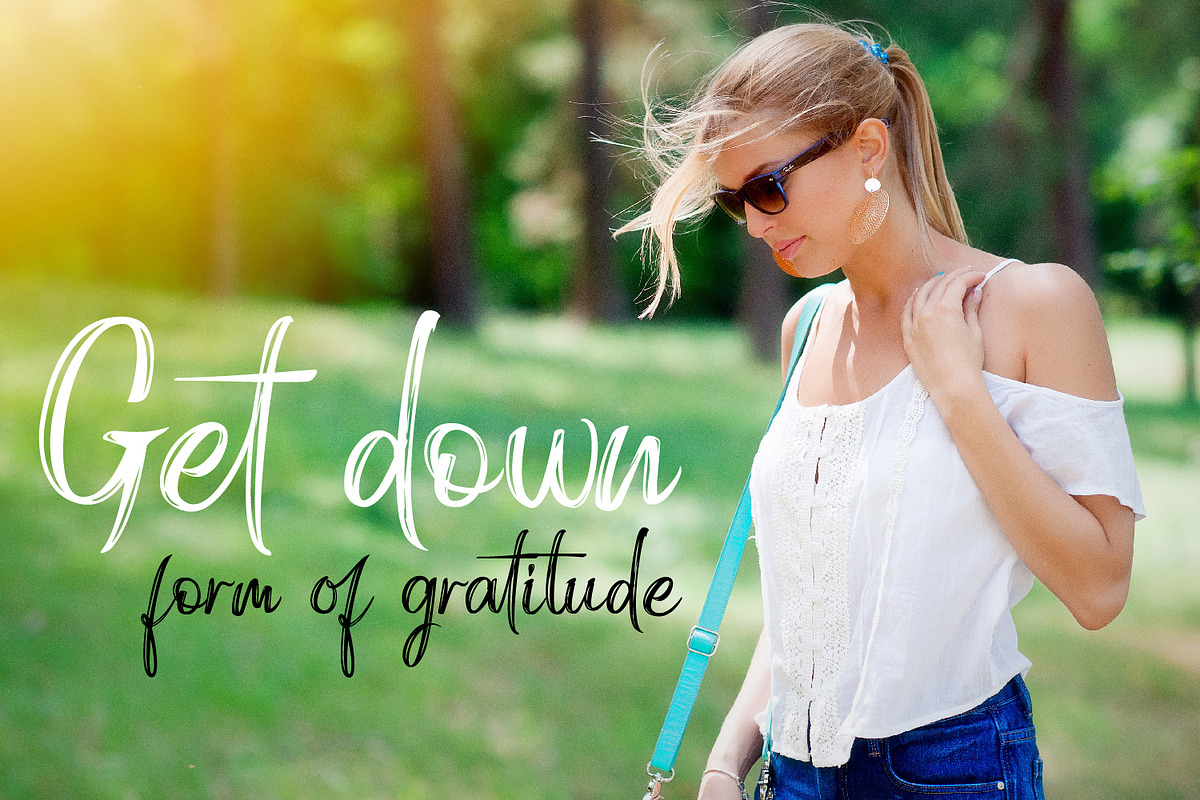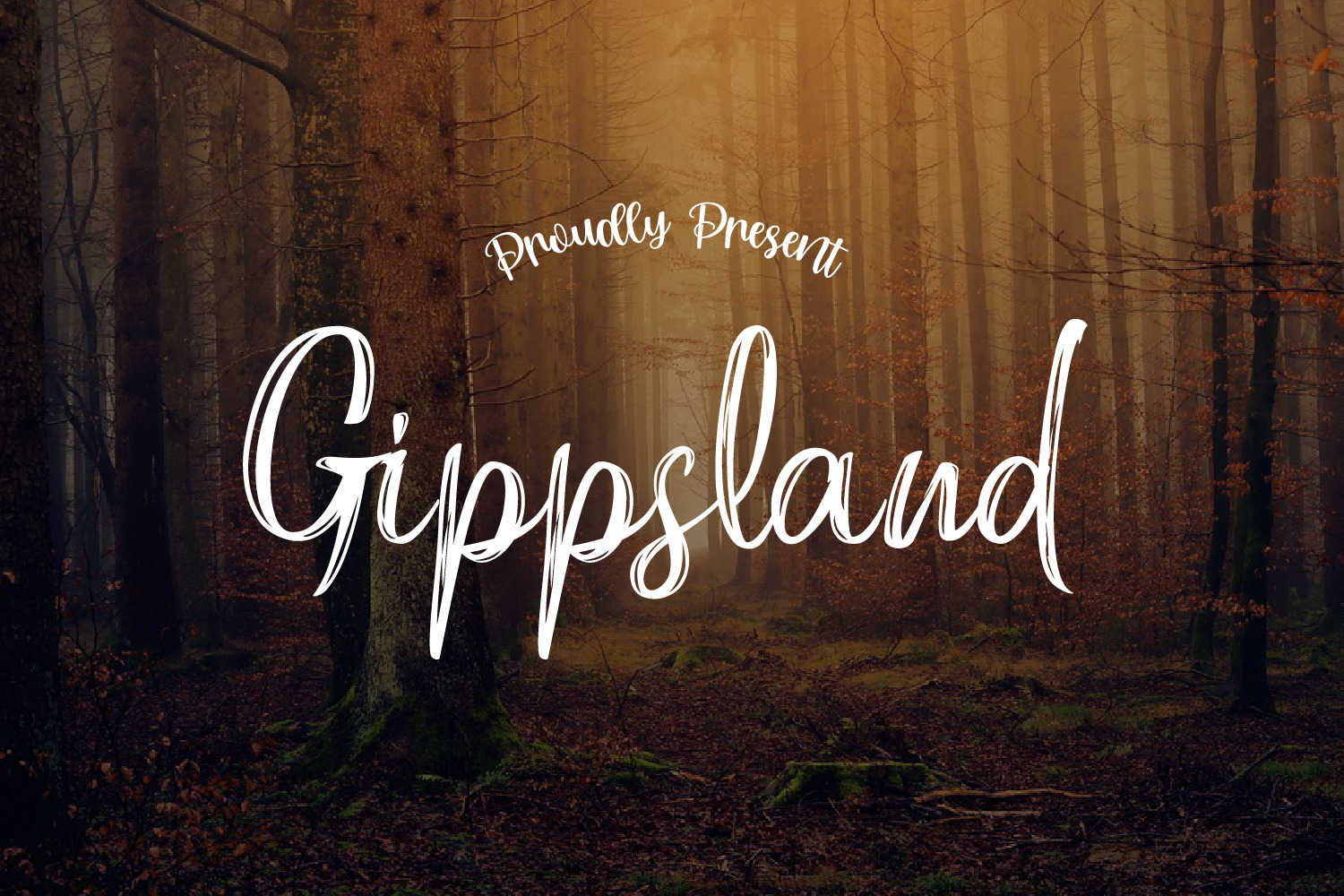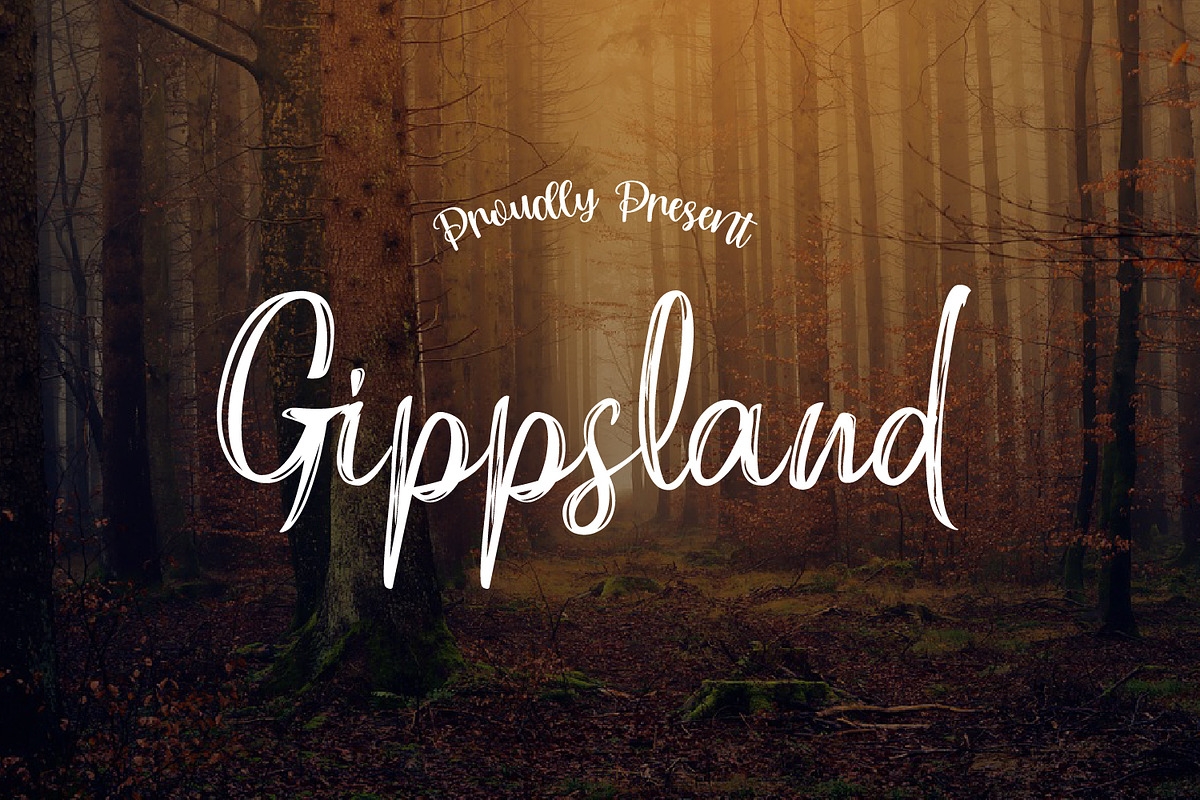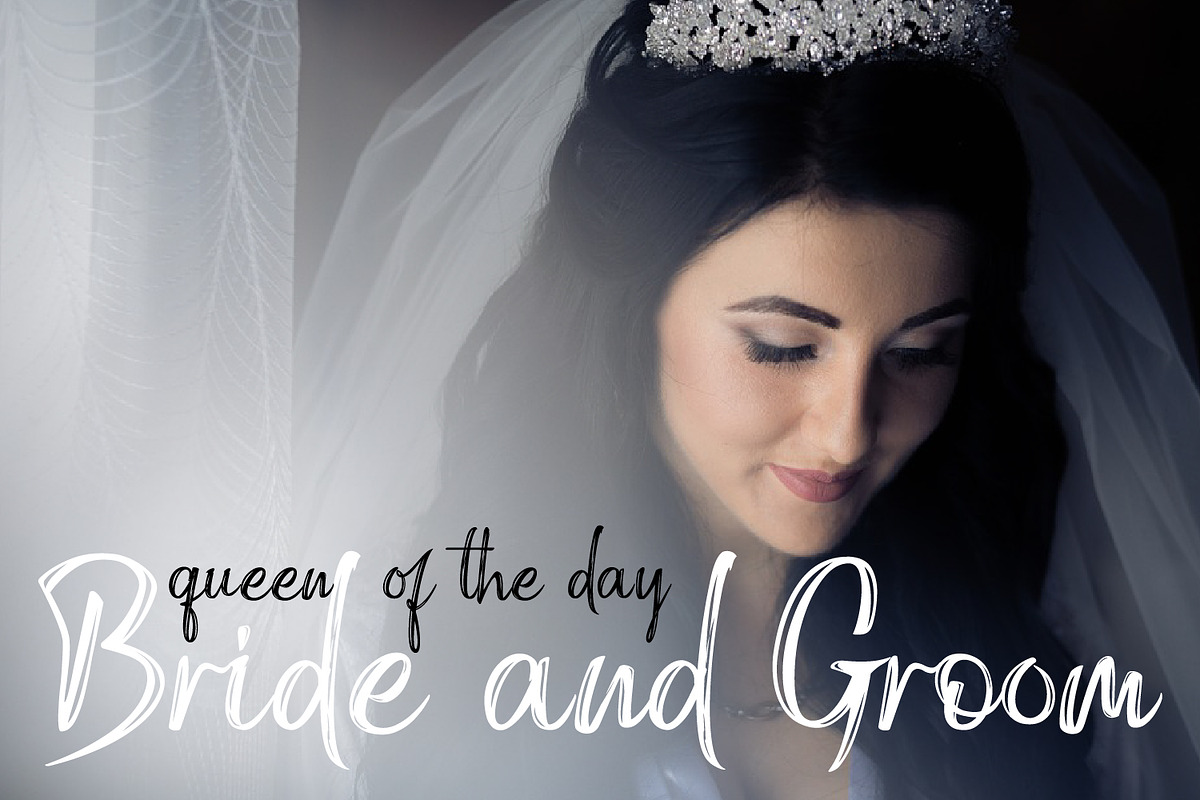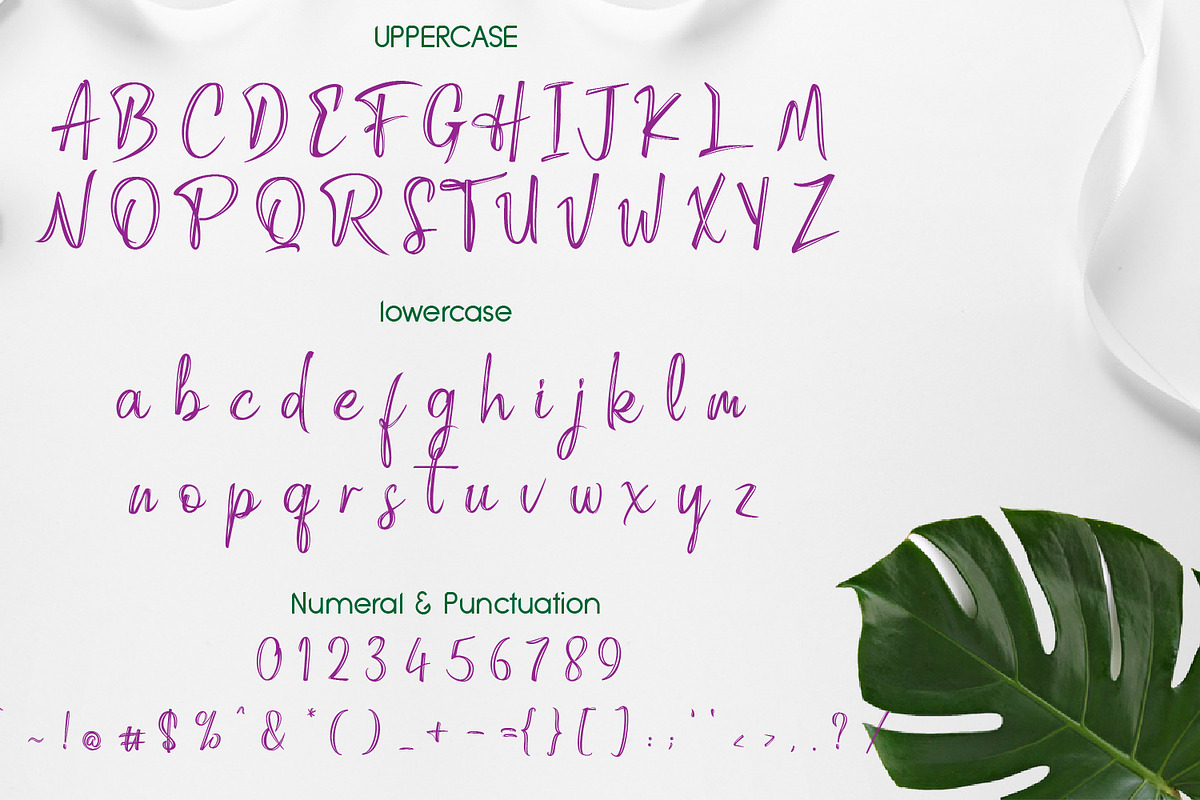
Gippsland Brush Font
Gippsland is a simple brush handwriting font with a strong character. Very suitable for various projects and products such as headings, signature, stationery art, logos, wedding invitation, t-shirt, letterhead, signage, labels , news, posters, badges etc